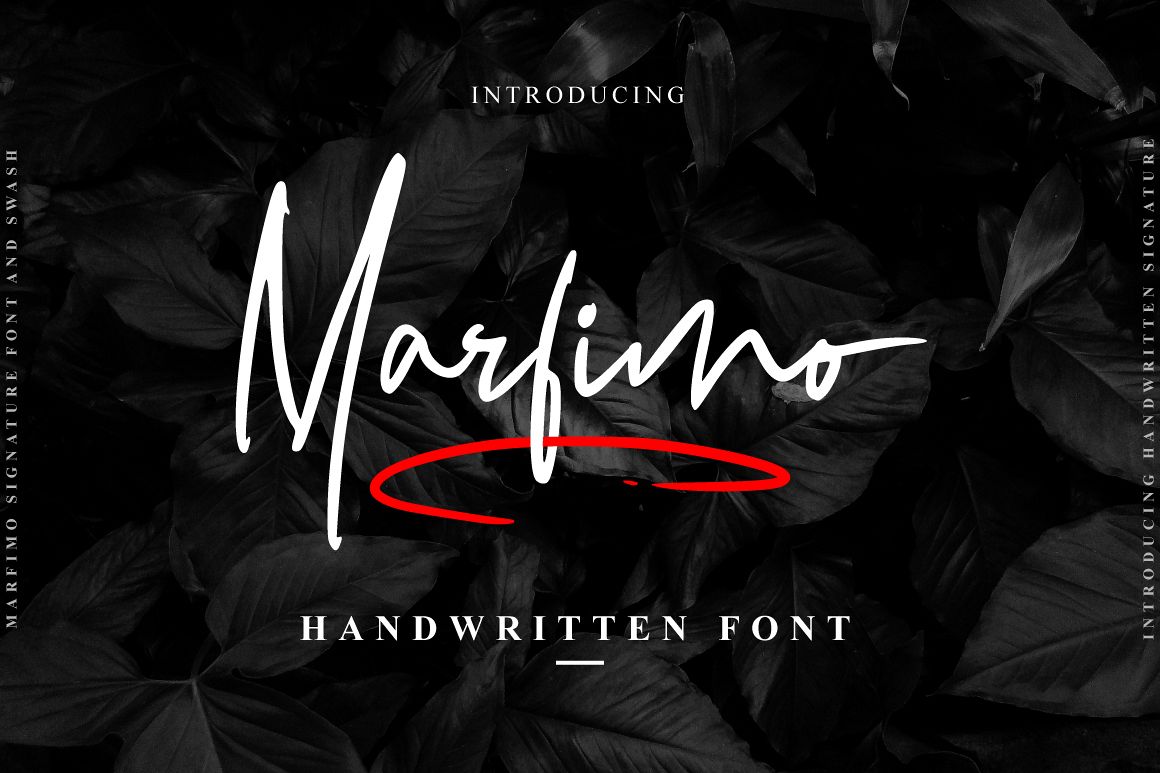
Marfimo Signature
Marfimo Signature is handmade brush style font with stunning characters. Ideal for logos, name tag, handwritten quotes, product packaging, merchandise, social media & greeting cards. It contains a full set of lower & uppercase letters, a large range of punctuation, numerals, and multilingual support.The font also contains several alternatives for lowercase characters, accessible in the Adobe Illustrator Glyphs panel, or under Stylistic Alternates in the Adobe Photoshop OpenType menu. But If you don't have any opentype specific software, you can still use Collatin as is with its standard lowercase and uppercase letters.Files Included: